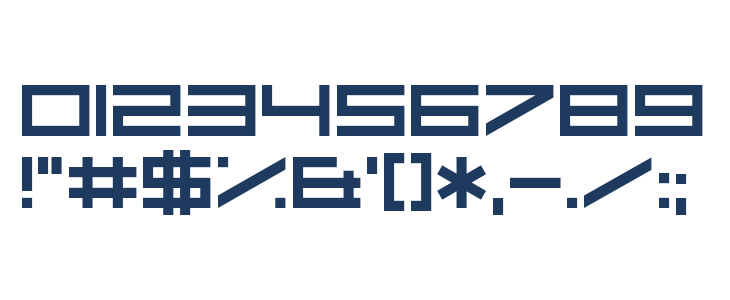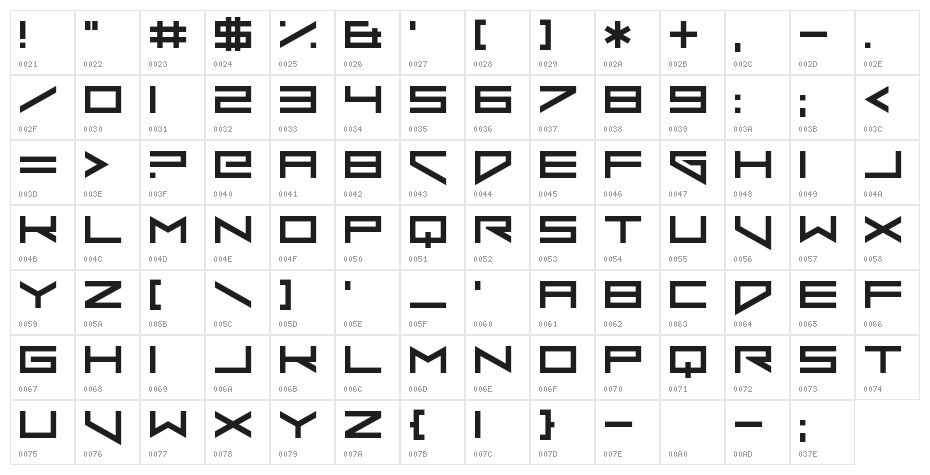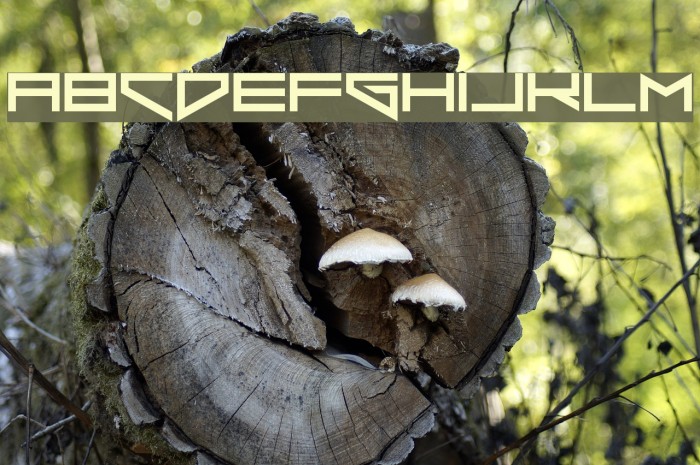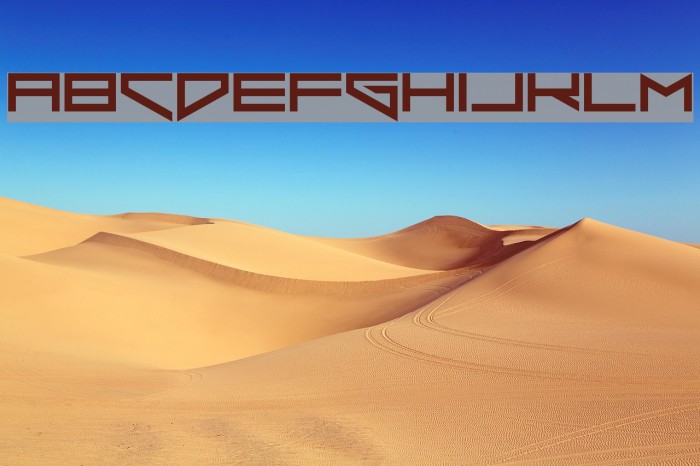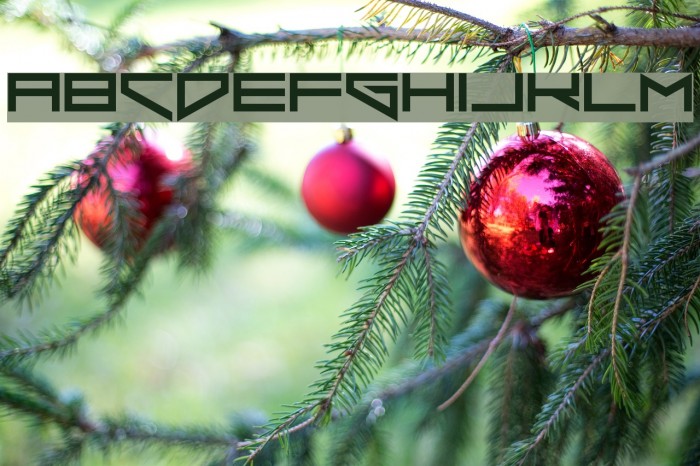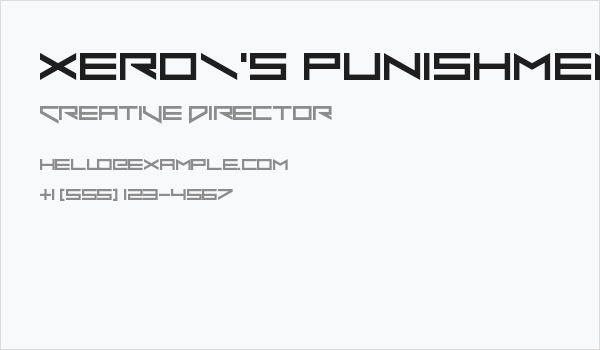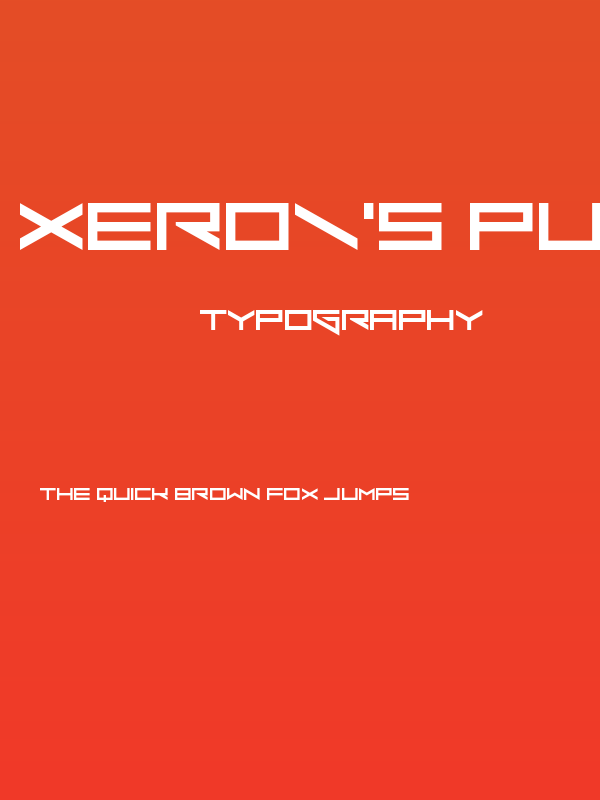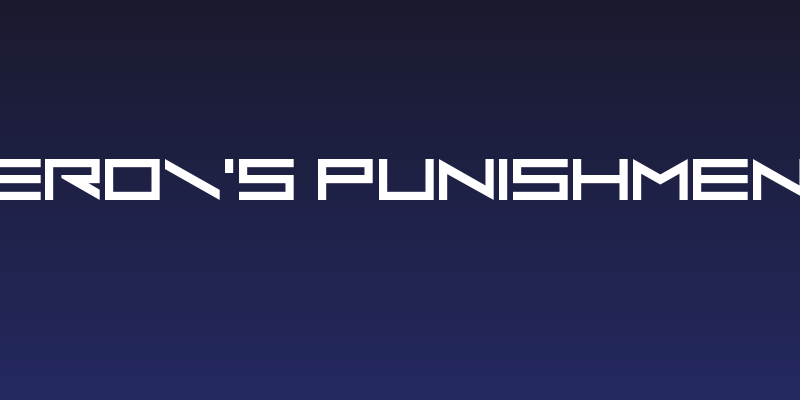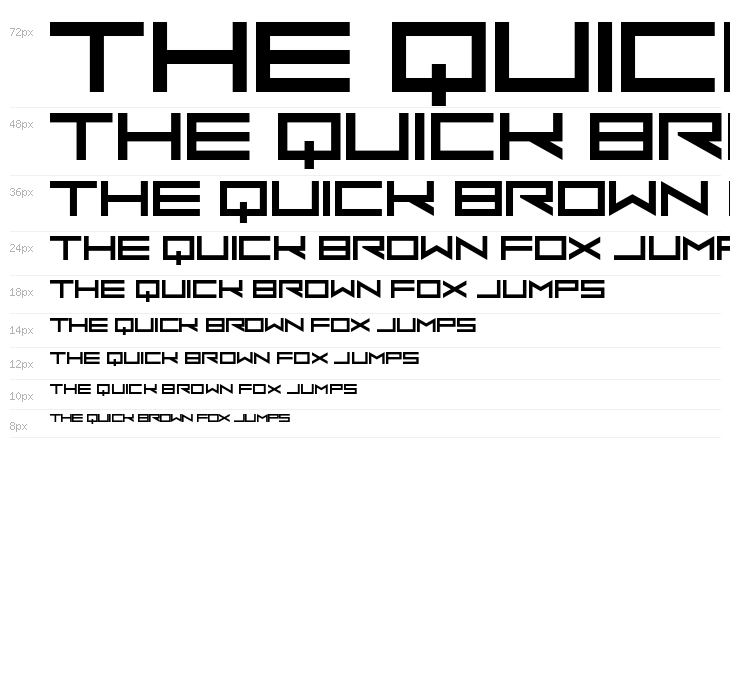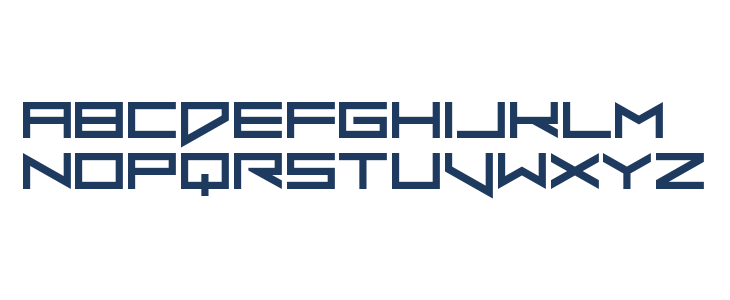
Xero's Punishment Font
Xero's Punishment Description
This font features a futuristic and geometric design, characterized by sharp angles and a distinct, edgy appearance. The uppercase letters are bold and striking, with a consistent angular motif that runs through each character. The lowercase letters maintain the same geometric style, ensuring uniformity across the typeface. Numbers are designed with the same angular precision, making them stand out with a modern flair. Special characters are included, each crafted to match the overall aesthetic, adding versatility to the font. The design is clean and impactful, making it suitable for projects that require a modern and tech-inspired look.
| Proposed Projects | Ideal for tech branding, sci-fi themed designs, video game titles, and modern posters. |